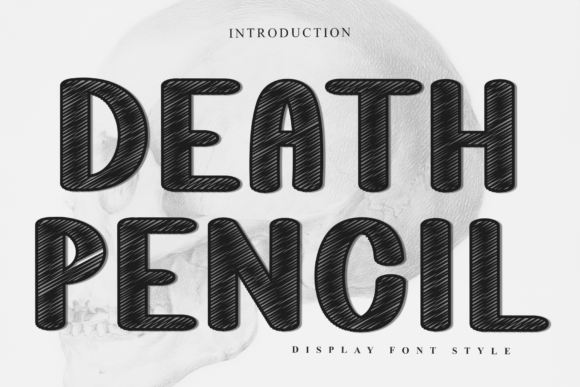
There’s nothing quite like the magic of the holiday season to spark creativity and inspire new ideas. As you sit surrounded by twinkling lights, warm cookies, and the soft glow of festive decorations, the perfect font comes to mind – one that captures the whimsy and wonder of this special time of year. Enter the Death Pencil Font, a merry and enchanting typeface designed to add a touch of cheer to your holiday designs.
This delightful font is more than just a pretty face – it’s a valuable tool for designers looking to bring a nostalgic ambiance to their work. With its decorative elements and whimsical flair, the Death Pencil Font is perfect for greeting cards, gift tags, and holiday-themed projects. And with its PUA encoding, accessing the amazing glyphs and ligatures is a breeze.
- Unique Characteristics: The font’s unique, hand-drawn style gives it a distinctive and edgy feel, making it ideal for use in designs that require a bold and attention-grabbing aesthetic.
Overall, I have mixed feelings about the Death Pencil Font. While it has some unique qualities, it’s not without its limitations.
- The Death Pencil Font has a bold, edgy feel that could work well for certain projects.
- The font’s unusual shapes and lines can add visual interest to a design.
- The font comes in a range of weights, making it versatile for different design applications.
- The font’s readability can be a concern, particularly in smaller text sizes.
- The font’s bold, edgy feel may not be suitable for all projects, such as those requiring a more formal or professional tone.
- The font’s unusual shapes and lines can be distracting if not used thoughtfully.
The Death Pencil Font is a unique and attention-grabbing choice, but it requires careful consideration and use to achieve the desired effect. While it may not be the best choice for all projects, it can add a touch of edginess to certain designs.
Death Pencil Font is best used for titles, headings, and emphasis. Use it sparingly to add a touch of edginess to your designs. You can also experiment with combining it with other fonts to create a unique look.
Death Pencil Font is commonly used for:
Music and entertainment branding
Alternative and underground culture designs
Emphasis and highlighting in text-based designs
Great Vibes is a fun, cursive script font that can be used for titles, headings, and body text in a variety of designs. It is more playful and less edgy compared to Death Pencil Font, making it suitable for creative and modern projects.
Comparison to Death Pencil Font: Great Vibes has a softer, more rounded feel, whereas Death Pencil Font has a bold, geometric look.
Alex Brush is a elegant, handwritten font that can be used for titles, headings, and body text in a variety of designs. It is more refined and sophisticated compared to Death Pencil Font, making it suitable for high-end and luxury projects.
Comparison to Death Pencil Font: Alex Brush has a more traditional, brush-written feel, whereas Death Pencil Font has a modern, geometric look.